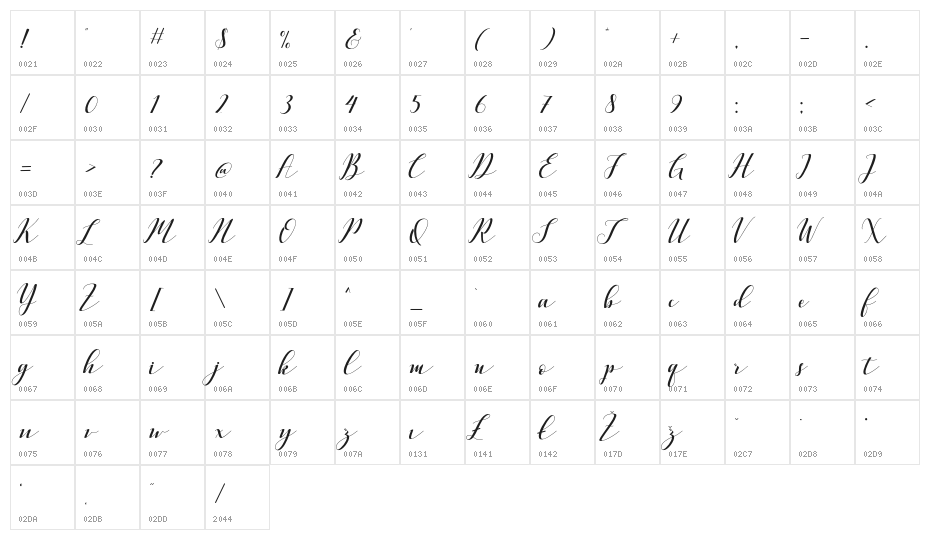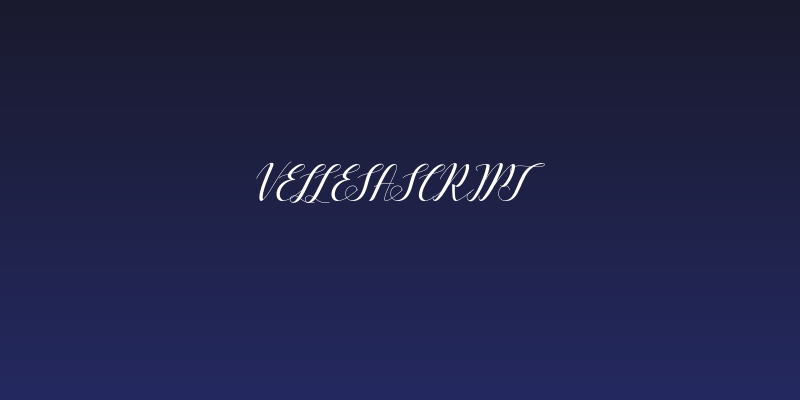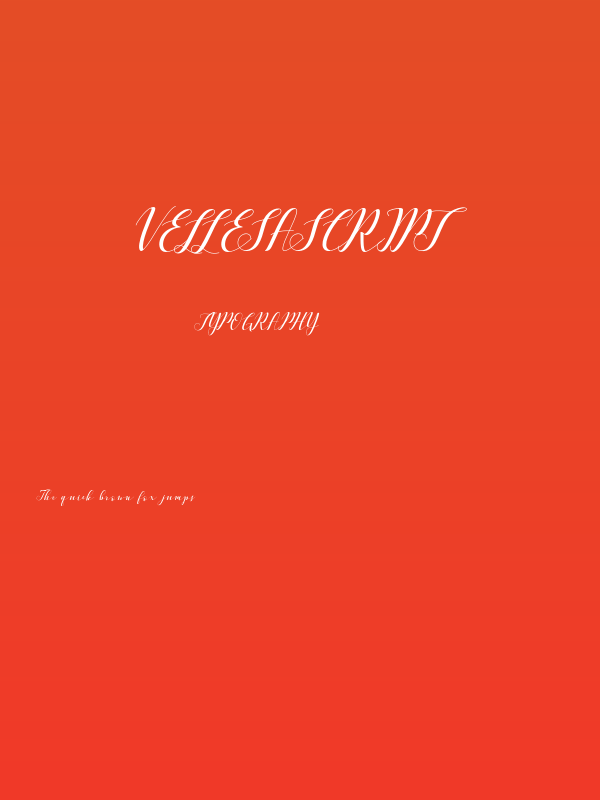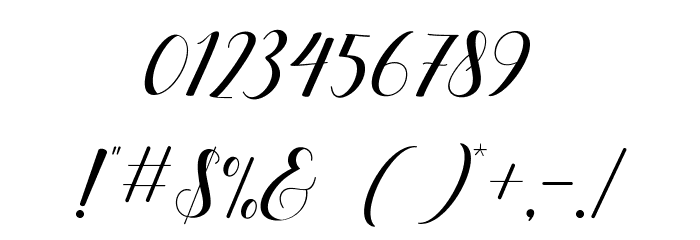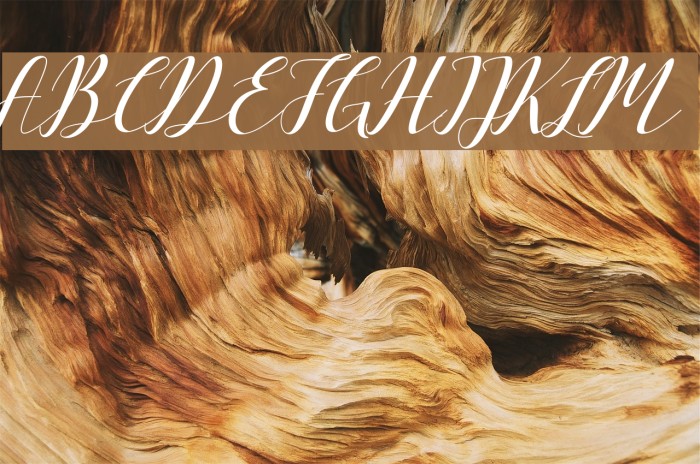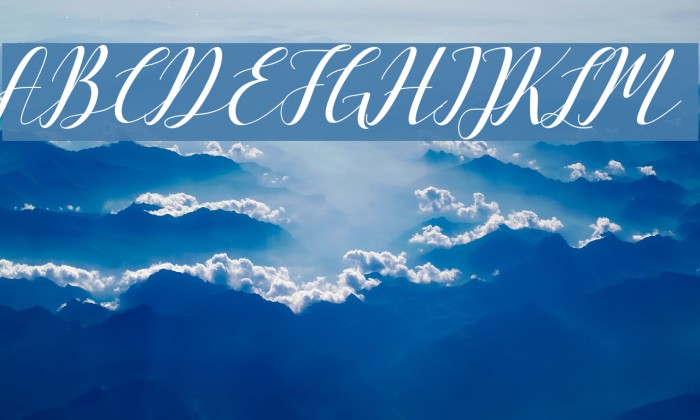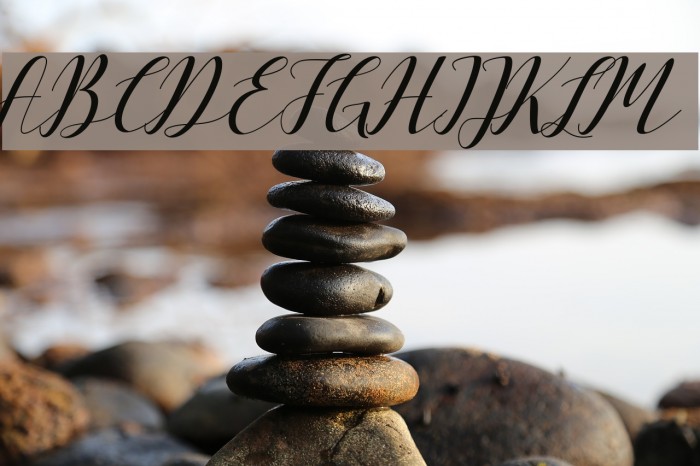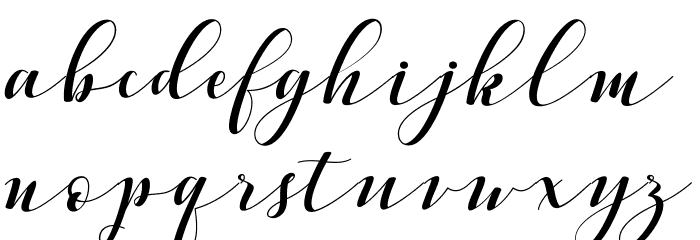
VellesaScript Font
VellesaScript Description
This elegant script font features flowing, cursive letterforms with a sophisticated and artistic flair. The uppercase letters are characterized by their sweeping curves and intricate loops, while the lowercase letters maintain a graceful continuity that enhances readability. The numerals are stylishly crafted, complementing the overall aesthetic of the font. Special characters are thoughtfully designed to match the font's elegant style, making it suitable for a variety of creative applications. The font's high contrast between thick and thin strokes adds to its visual appeal, making it a perfect choice for projects that require a touch of elegance and sophistication.
| Proposed Projects | Ideal for wedding invitations, elegant branding, greeting cards, and luxury packaging. |